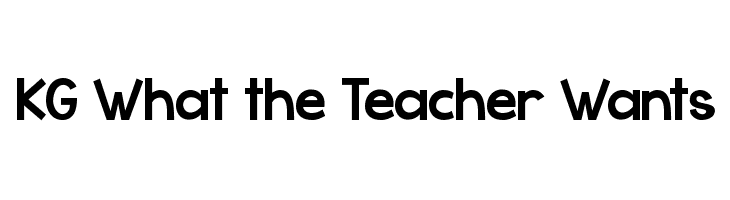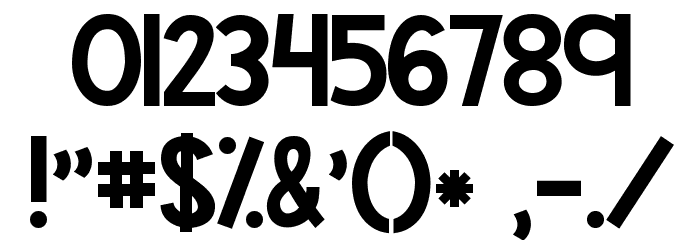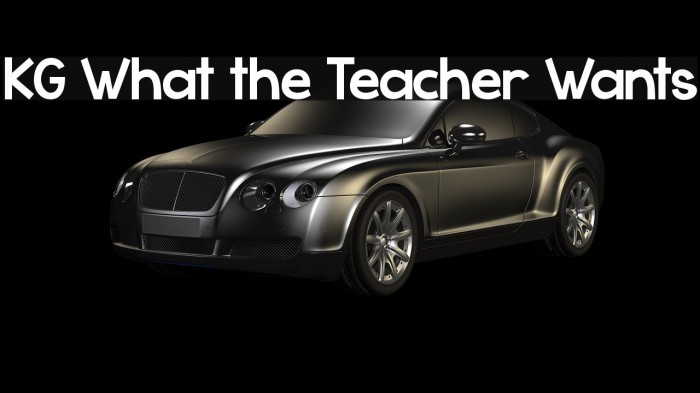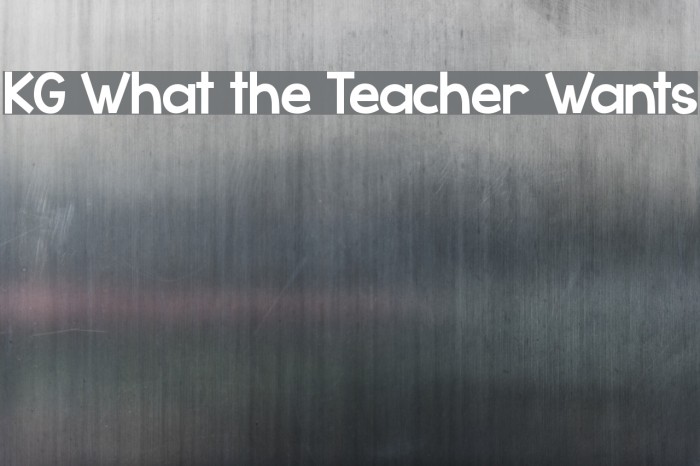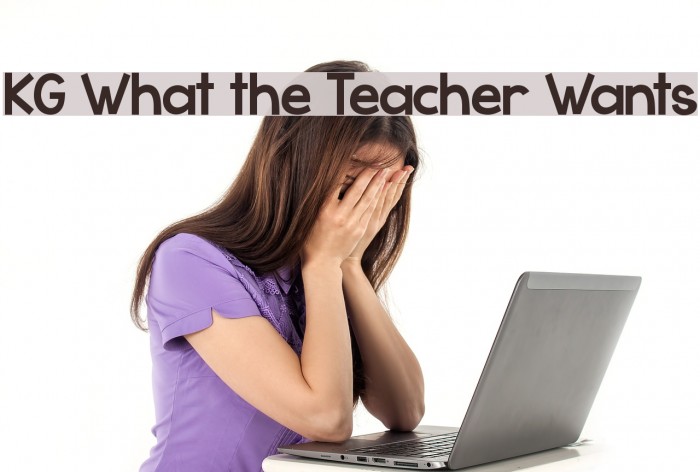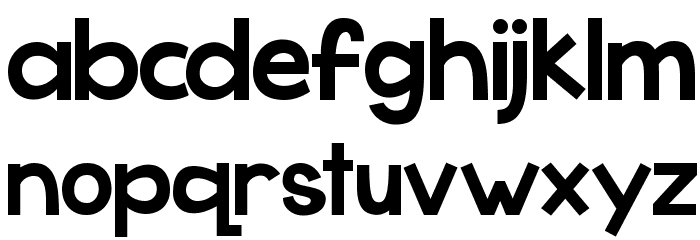
KG What the Teacher Wants Font
KG What the Teacher Wants Description
This font features a bold and playful design with rounded edges and a friendly appearance. The characters are evenly spaced, providing a clean and organized look. The uppercase and lowercase letters maintain a consistent style, with a slight variation in the height of the ascenders and descenders. The numerals are clear and legible, matching the overall aesthetic of the alphabet. Special characters are included, each designed to complement the font's cohesive style. This font is versatile, suitable for both digital and print media, and can be used to convey a sense of fun and approachability.
A bold, playful font with rounded edges and a friendly appearance from Uncategorized fonts.
- Proposed Projects: Ideal for educational materials, children's books, playful branding, and social media graphics.
- Overall Style: Playful
- Use Case: Headlines, Logos, Educational materials